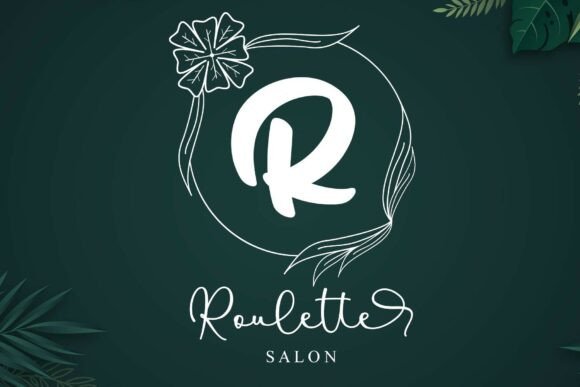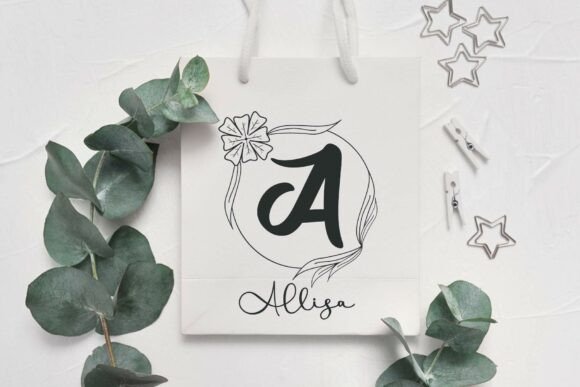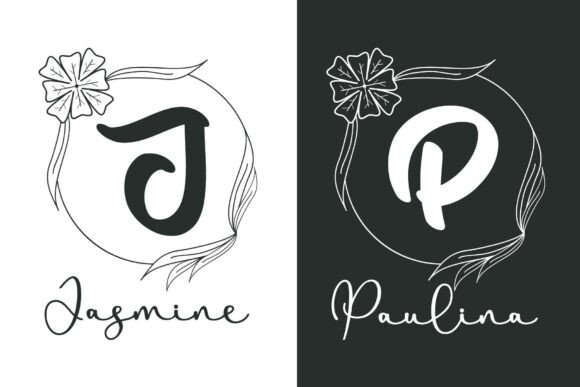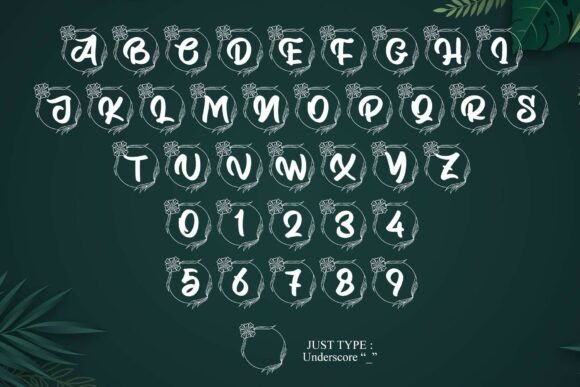
The Art of Elegant Monograms
Have you ever sat down to craft a special gift or design, only to be stuck on the perfect way to add a touch of personality? Maybe it’s a wedding invitation, a custom logo, or a personalized piece of jewelry. For many designers, the perfect monogram can be the key to unlocking a truly stunning creation.
Enter the Balistamonogram Font, a beautiful and versatile typeface designed specifically for crafting elegant monograms and logos. This stylish font combines bold, smooth strokes with delicate floral wreaths, creating a perfect balance of strength and elegance. With its ready-made floral monogram frames, Balistamonogram Font makes it easy to create stunning designs instantly – simply type a letter or number, and you’ll have a complete decorative emblem.
Balistamonogram Font Key Features
- Unique Characteristics: Features a unique blend of modern and vintage elements, making it perfect for creative projects
Review of Balistamonogram Font
Overall, I was quite impressed with the Balistamonogram Font! ✨ Here are a few things that stood out to me:
- Unique design: The Balistamonogram Font has a distinctive, hand-drawn look that sets it apart from more generic fonts.
- Wide character set: The font includes a wide range of characters, including international characters and special symbols.
- Good legibility: Even at smaller font sizes, the text remains clear and easy to read.
- Limited font weights: The font only comes in a few different weights, which may limit its versatility.
- No bold or italic versions: If you need to emphasize certain text, you may be out of luck.
- Some awkward spacing: In certain cases, the spacing between letters can be a bit off, which may affect readability.
Overall, I think the Balistamonogram Font is a great choice for designers who want to add a touch of personality to their projects. While it’s not perfect, its unique design and wide character set make it a solid option for many applications.
Tips for Getting the Most Out of Balistamonogram Font
Experiment with different font sizes, colors, and combinations to achieve the desired effect.
Use Balistamonogram Font for titles, headings, and other emphasis text to add visual interest.
Combine Balistamonogram Font with other fonts to create a unique and visually appealing design.
Use Balistamonogram Font for creative projects, such as posters, flyers, and brochures.
Apply Balistamonogram Font to digital products, such as websites, social media graphics, and email newsletters.
Use Balistamonogram Font for print materials, such as business cards, letterheads, and menus.
Alternatives to Balistamonogram Font
1. Baskerville
Baskerville is a classic serif font that exudes elegance and sophistication. It is perfect for use in high-end branding, luxury goods, and formal documents where a touch of refinement is required.
Comparison to Balistamonogram Font: Baskerville is more formal and traditional, whereas Balistamonogram Font is a more modern and quirky font. Baskerville is ideal for use in situations where a sense of history and tradition is desired, whereas Balistamonogram Font is better suited for more playful and creative projects.
Pacifico is a beautiful script font that is perfect for use in creative and artistic projects. It has a relaxed and casual feel that is ideal for use in advertising, packaging, and other marketing materials.
Comparison to Balistamonogram Font: Pacifico is more fluid and expressive, whereas Balistamonogram Font is more geometric and structured. Pacifico is ideal for use in situations where a sense of freedom and creativity is desired, whereas Balistamonogram Font is better suited for more precise and controlled projects.